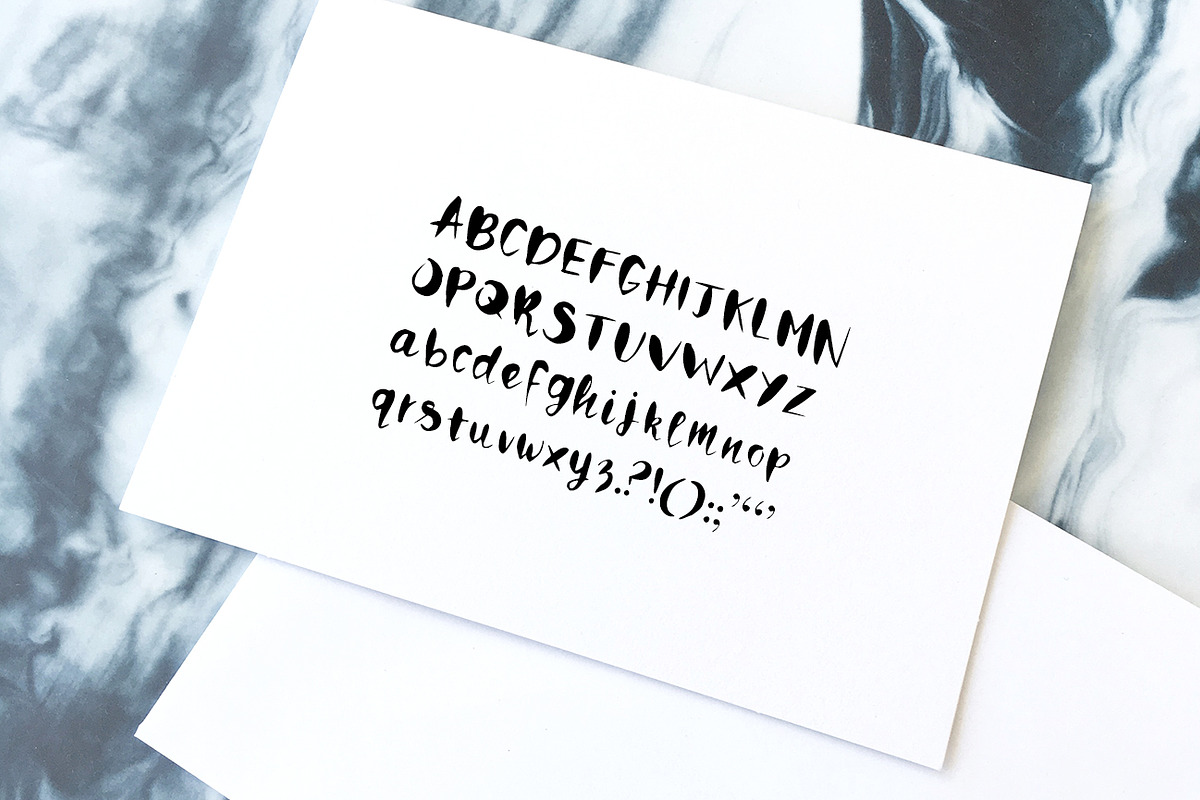
Arabella Hand Painted Typeface
Arabella Hand Painted Typeface by The Stylesheet is a font selected for branding, posters, packaging, typography.
Why Arabella Hand Painted Typeface is worth a look
Arabella Hand Painted Typeface by The Stylesheet fits naturally into Branding, posters, packaging, typography.